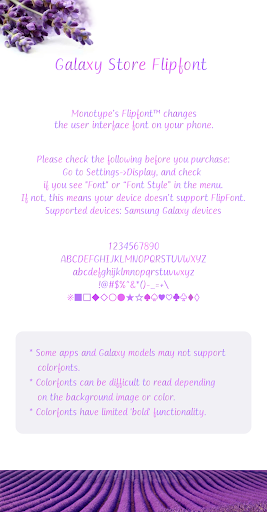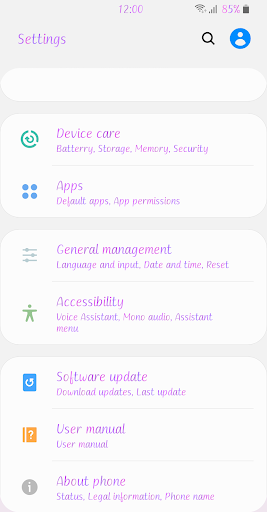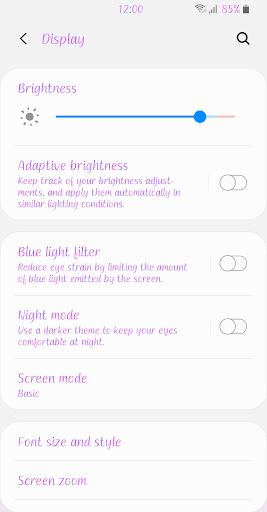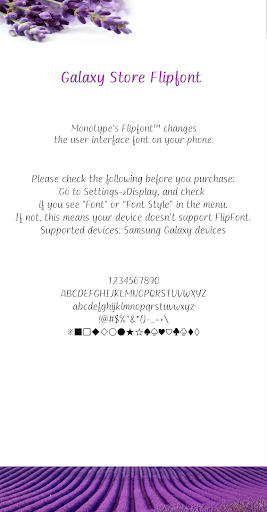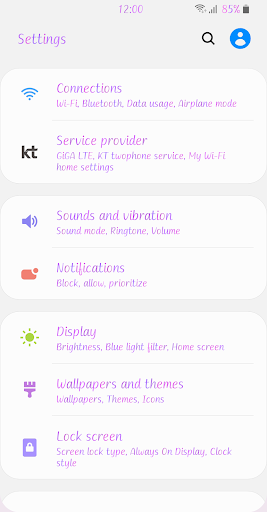
Fine Lovender
This font is a natural and smooth pen writing style font.
You can read the change in thickness according to the movement of the stroke, and it continues smoothly.
Lavender color full of love makes you fragrant.
I can smell lavender from you.
You came to me with a soft scent and gently wrapped my heart.
Your scent and purple love blossomed into Lovender.